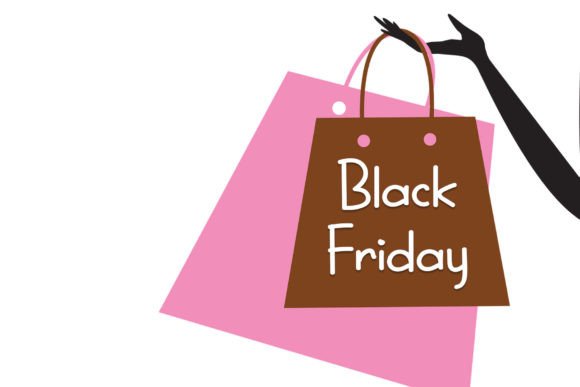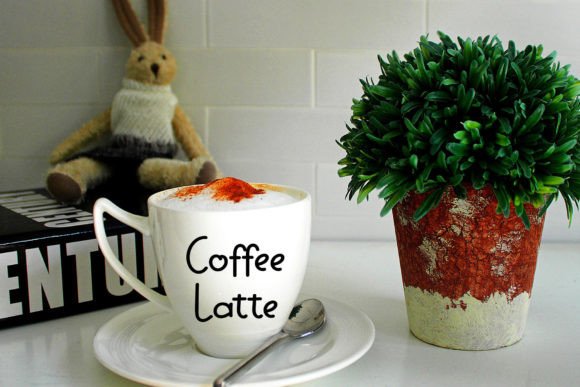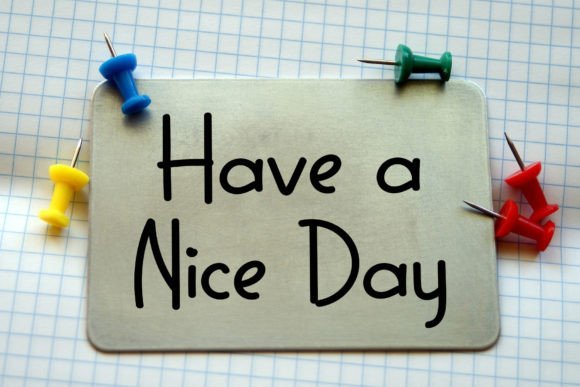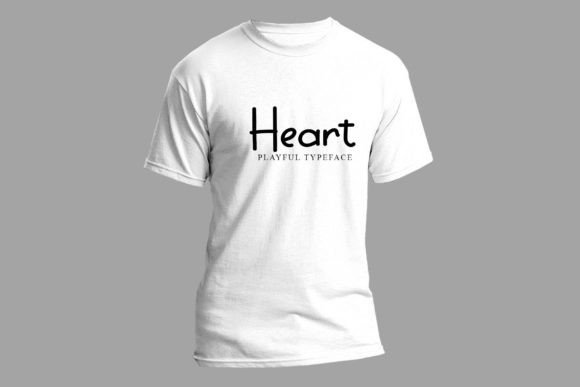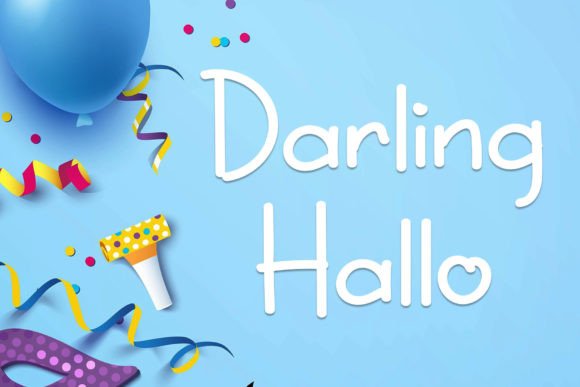
Introducing Darling Hallo: The Ultimate Handwritten Font for Playful Designs
Are you tired of using the same old fonts for your designs? Look no further than Darling Hallo, a natural and cute handwritten font that’s perfect for creating eye-grabbing designs that don’t take themselves too seriously. In this article, we’ll dive into the world of Darling Hallo and explore its features, uses, and benefits for designers and crafters.
What is Darling Hallo?
Darling Hallo is a beautiful, handwritten font that’s designed to add a touch of personality to your designs. With its natural and effortless feel, this font is perfect for creating designs that are playful, fun, and engaging. Whether you’re working on a project for a client or creating something for your own brand, Darling Hallo is sure to make your designs stand out.
Features of Darling Hallo
So, what makes Darling Hallo so special? Here are just a few of its key features:
• Handwritten feel: Darling Hallo has a natural, handwritten feel that’s perfect for creating designs that feel personal and authentic.
• Cute and playful: This font is designed to be fun and playful, making it perfect for designs that need to grab attention and entertain.
• Versatile: Darling Hallo can be used for a wide range of designs, from headlines and social media posts to gig posters, logos, and packaging.
• Easy to read: Despite its playful feel, Darling Hallo is easy to read and understand, making it perfect for designs that need to communicate a message.
Uses for Darling Hallo
So, what can you use Darling Hallo for? The possibilities are endless, but here are a few ideas to get you started:
• Headlines: Use Darling Hallo to create attention-grabbing headlines that draw readers in.
• Social media: Add a touch of personality to your social media posts with Darling Hallo.
• Gig posters: Create eye-catching gig posters that showcase your band or event.
• Logos: Use Darling Hallo to create a unique and memorable logo for your brand.
• Packaging: Add a personal touch to your packaging with Darling Hallo.
• Advertising: Use Darling Hallo to create ads that stand out and grab attention.
So, what are the benefits of using Darling Hallo for designers and crafters? Here are just a few:
• Adds personality: Darling Hallo adds a touch of personality to your designs, making them more engaging and memorable.
• Easy to use: This font is easy to use and works well with a wide range of design software.
• Versatile: Darling Hallo can be used for a wide range of designs, making it a great addition to any designer’s toolkit.
• Time-saving: With Darling Hallo, you can create professional-looking designs in no time.
In conclusion, Darling Hallo is a natural and cute handwritten font that’s perfect for creating eye-grabbing designs that don’t take themselves too seriously. With its features, uses, and benefits, this font is a must-have for designers and crafters looking to add a touch of personality to their work. So why wait? Download Darling Hallo today and start creating designs that are playful, fun, and engaging!